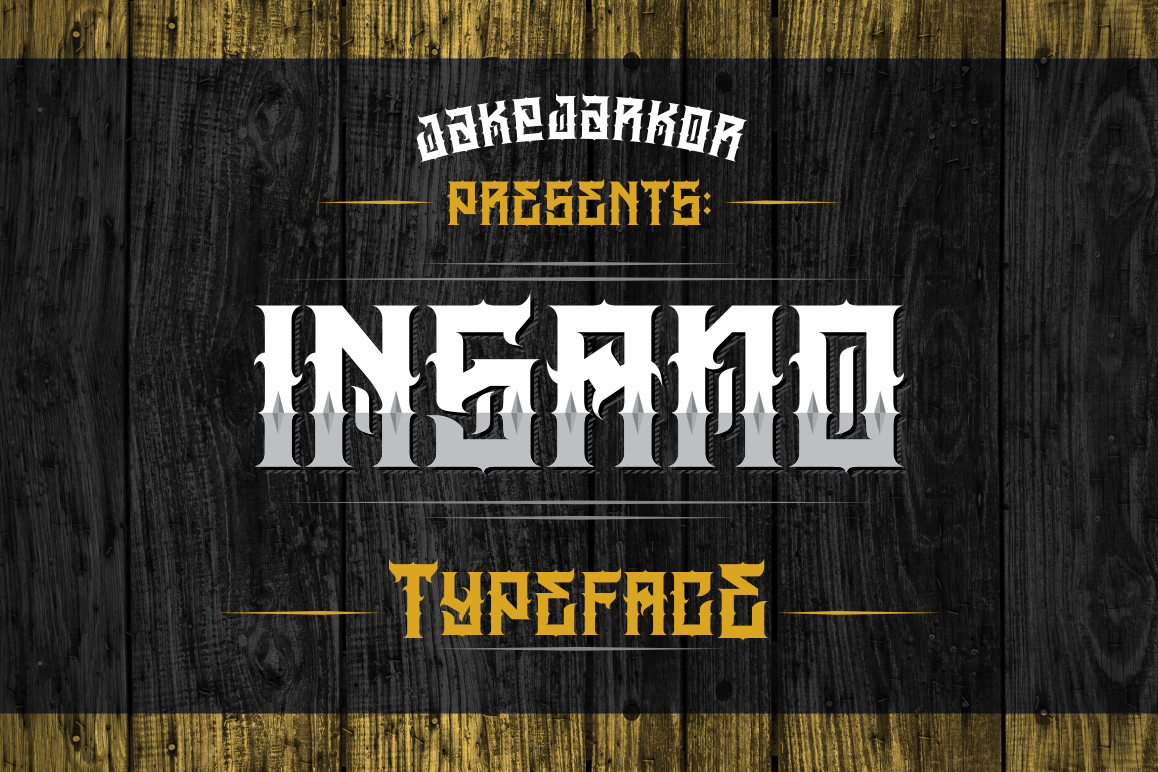
INSANO
Jake Jarkor Presents:
INSANO is a typeface inspired in tattoo letters, chicano culture and street art. It works well with normal size text, but it works even better for large displays, short words, or even just to incorporate a few or single characters in a design. Suitable for many creative products & tattoo designs, like posters, t-shirt, street wear, logo, signage, headlines, etc.